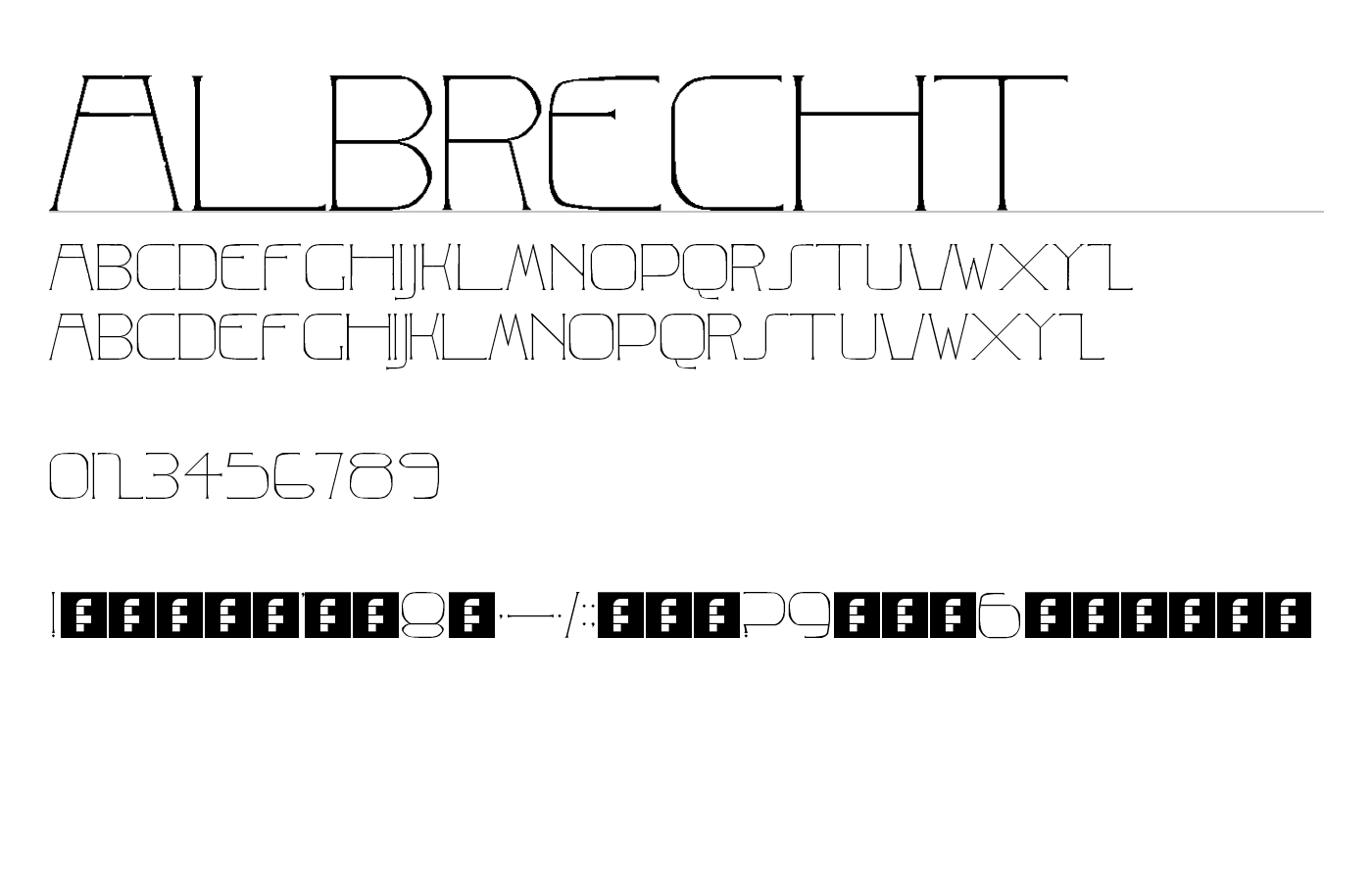
Albrecht is a delicate, narrow sans serif font with a modern and minimalist feel, characterized by its very thin strokes and geometric letterforms. Its high contrast and sleek lines give it an elegant, almost architectural style that works well in luxury branding, editorial headlines, and artistic design projects where a sophisticated and contemporary look is desired. This font’s unique structure and airy spacing create a refined and stylish impression, making it ideal for use in upscale logos, fashion magazines, and clean web designs.
Albrecht Font
About Albrecht Font